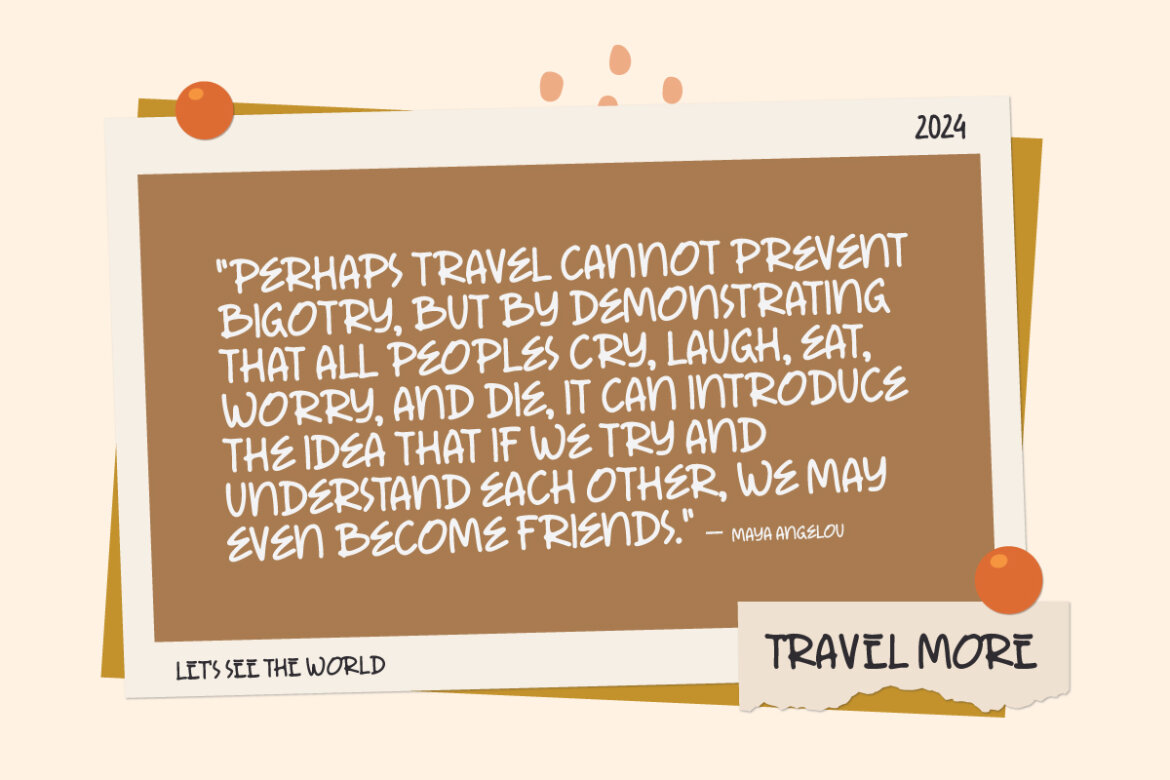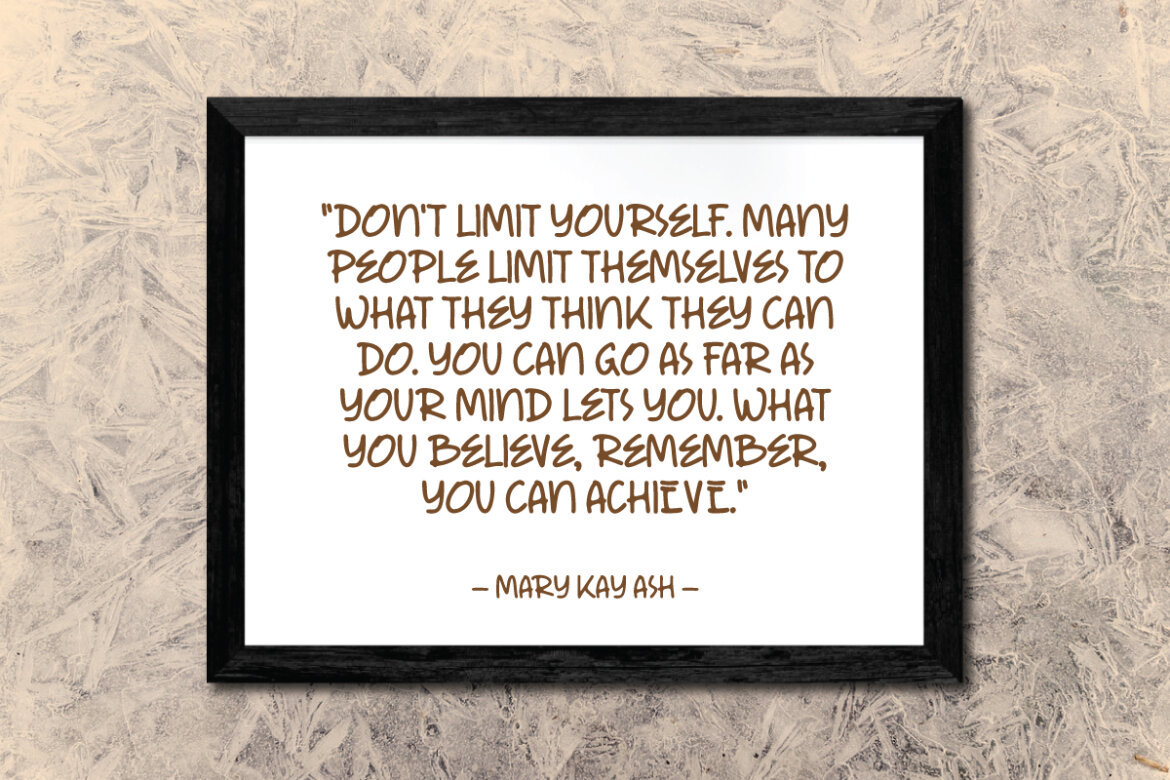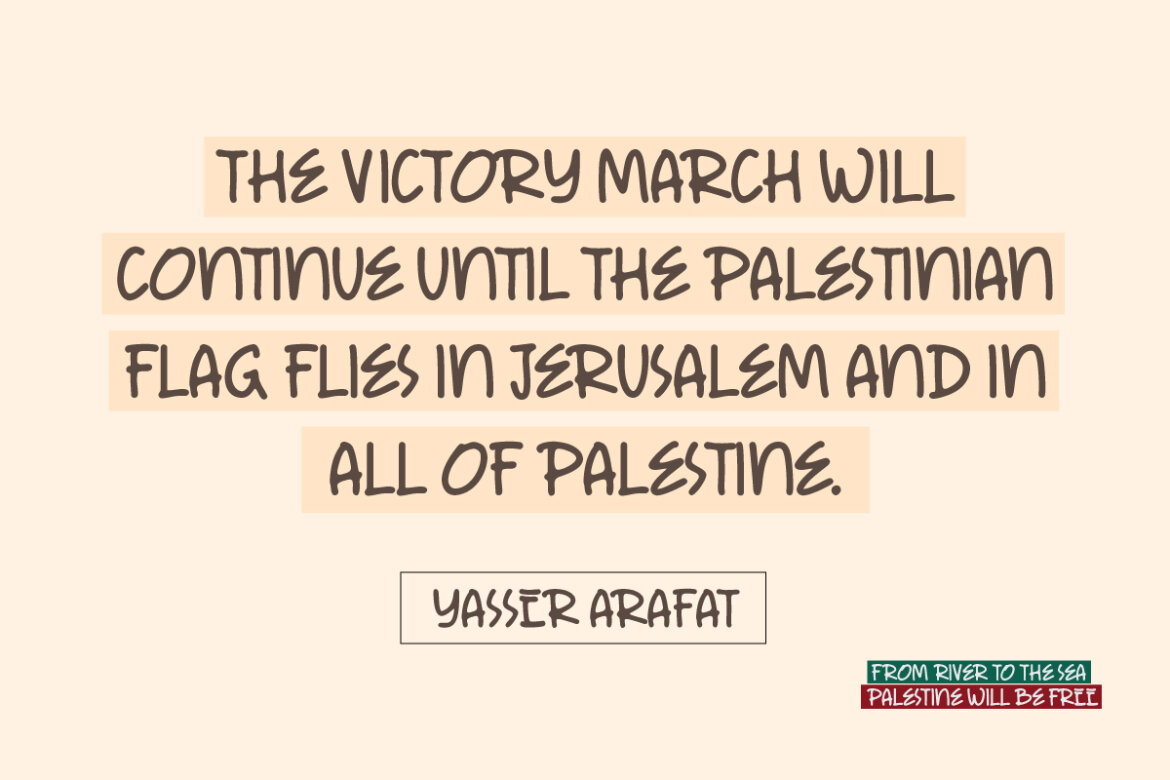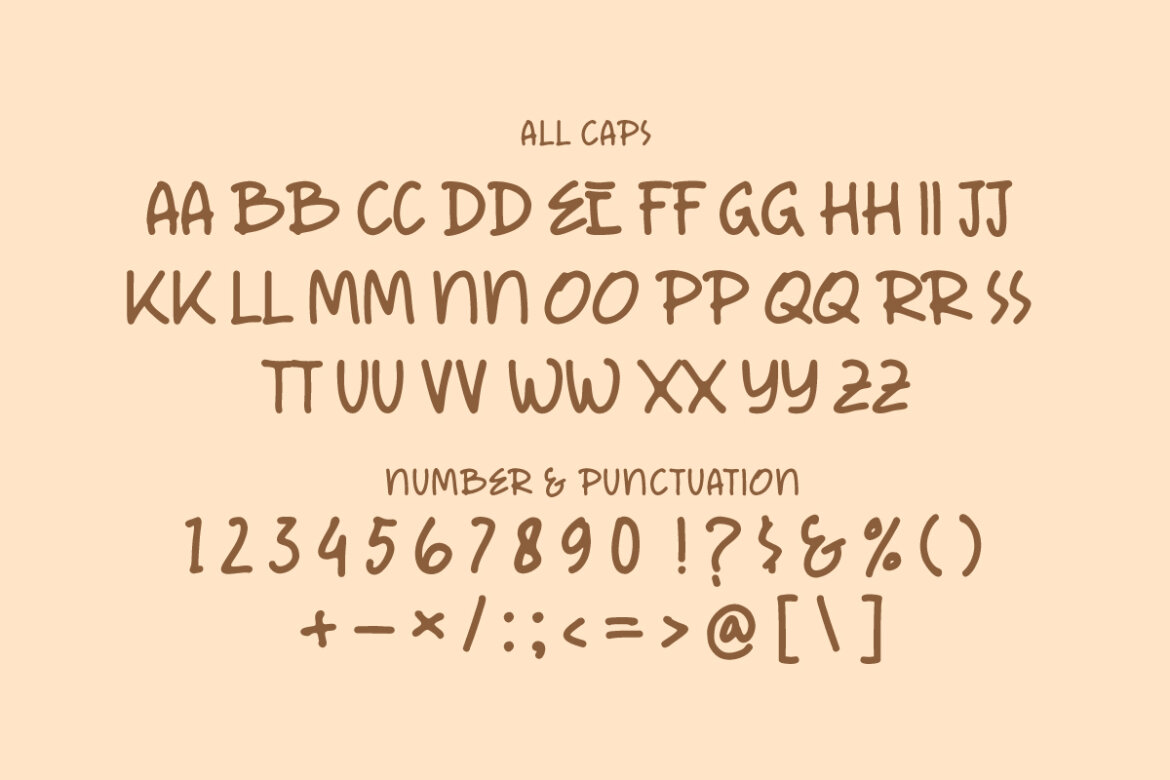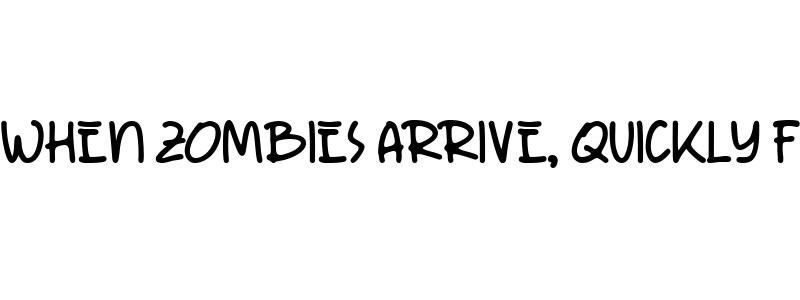
Murah - Handwritten FREE Font
Murah - Handwritten Font Free
Murah is an elegant Handwritten font designed to infuse modernity and charm into your projects, exuding a delightful and welcoming ambiance. Discover the font's versatility and immerse yourself in its enchanting appeal.
Murah font showcases a Handwritten style, allowing for seamless integration into diverse applications such as product packaging, branding endeavors, magazines, social media platforms, weddings, or any setting where words merge harmoniously with the backdrop.